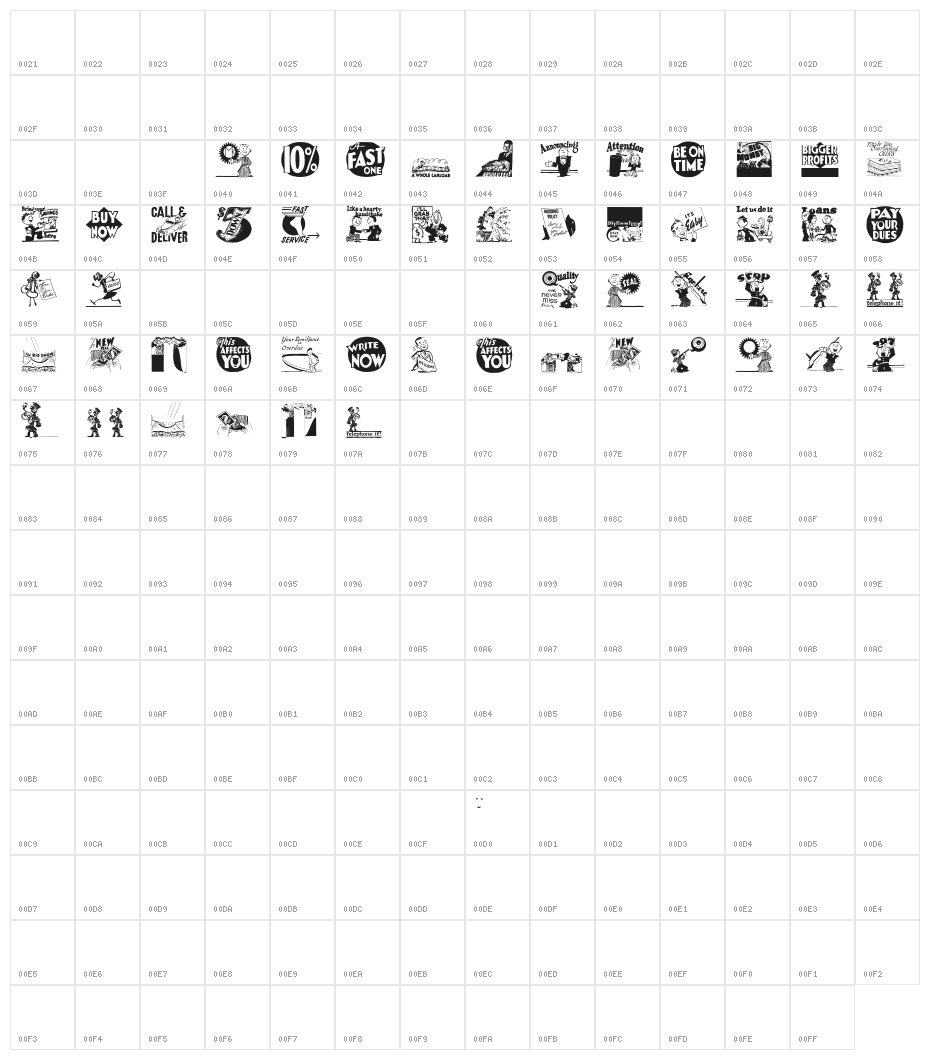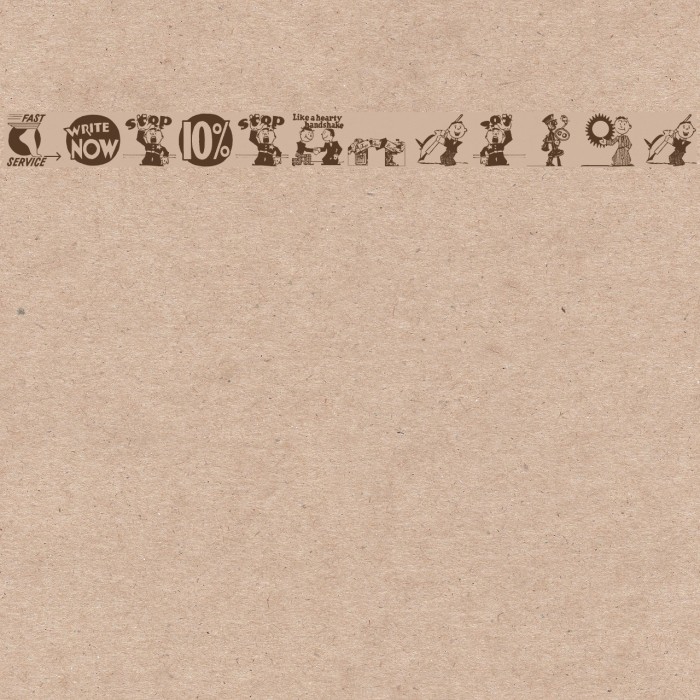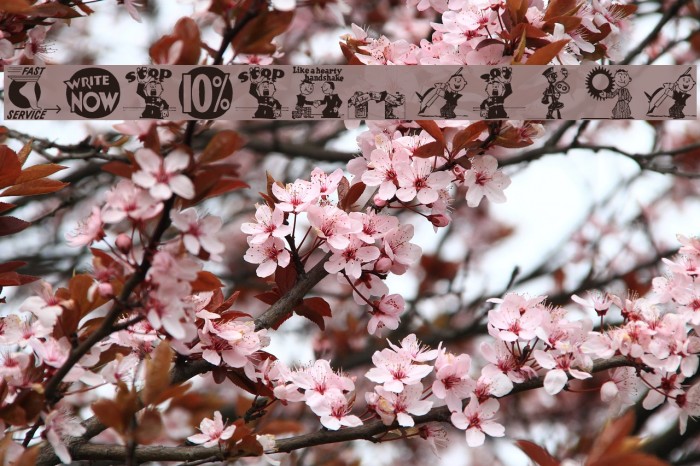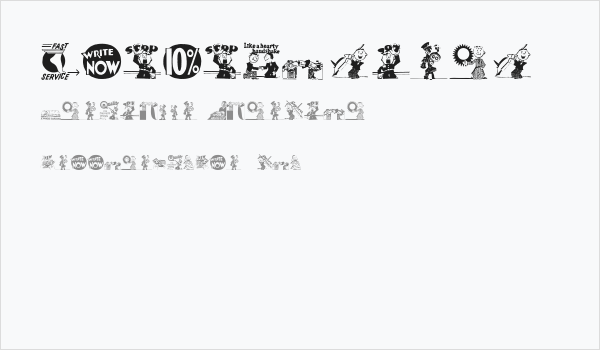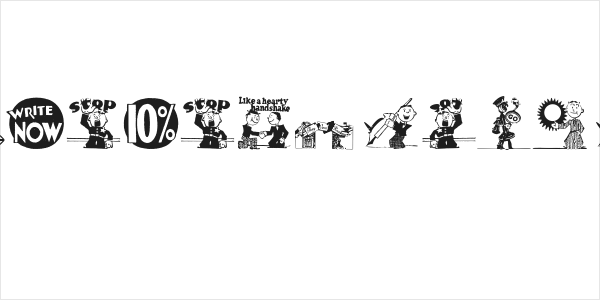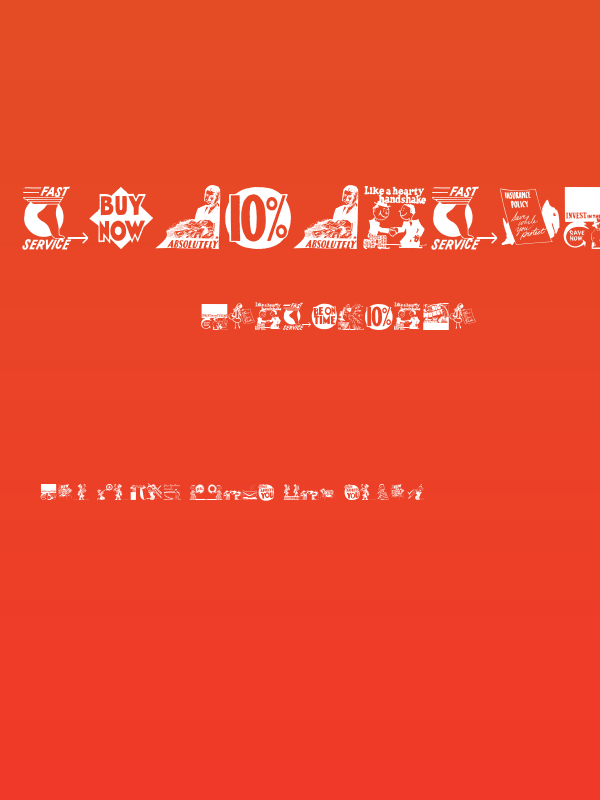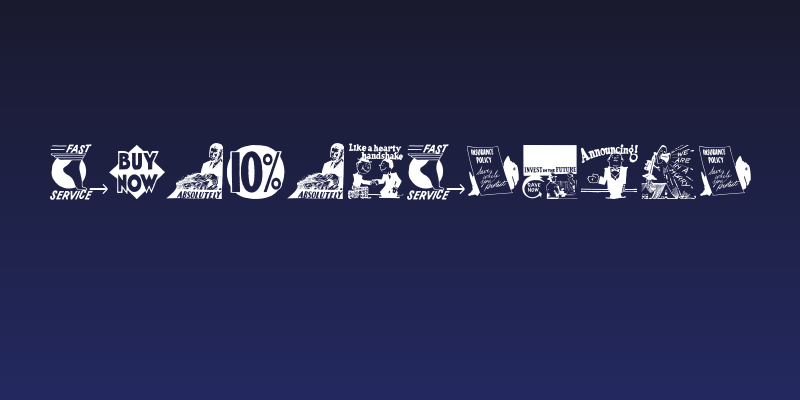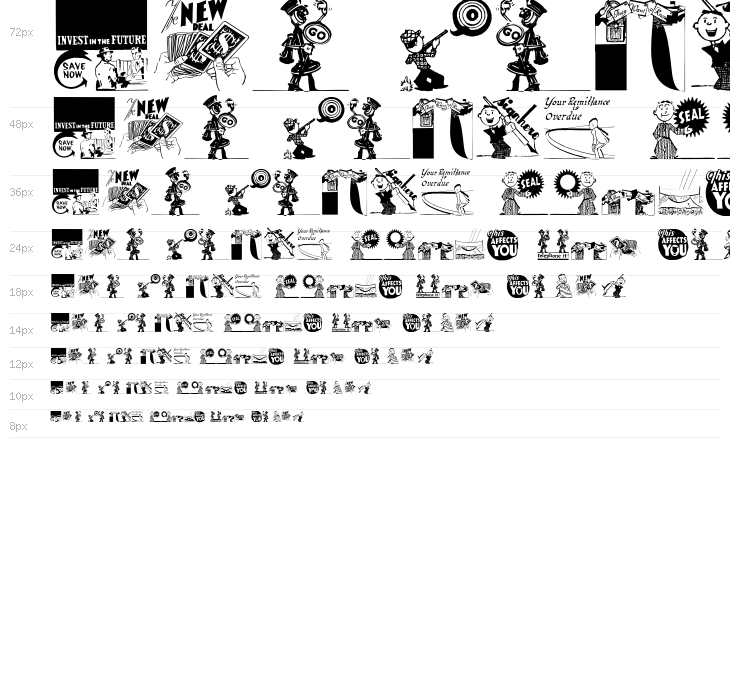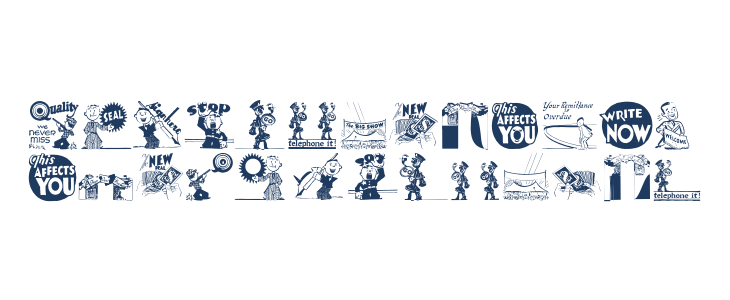
OldAdPosters Font
OldAdPosters Description
This is a decorative and playful font that incorporates vintage advertising elements and illustrations. Each character is uniquely designed with a retro aesthetic, featuring bold and expressive graphics that capture the essence of mid-20th-century advertising. The font includes a variety of characters, each with its own distinct illustration, making it ideal for projects that require a nostalgic or whimsical touch. The characters are well-spaced, allowing for clear readability despite the intricate designs. The font's style is reminiscent of classic comic strips and old newspaper ads, providing a sense of nostalgia and charm.
| Overall Style | Vintage |
| Use Case | Logos, Posters, Creative Branding |
| Proposed Projects | Ideal for vintage-themed posters, retro advertisements, comic book designs, and creative branding projects. |